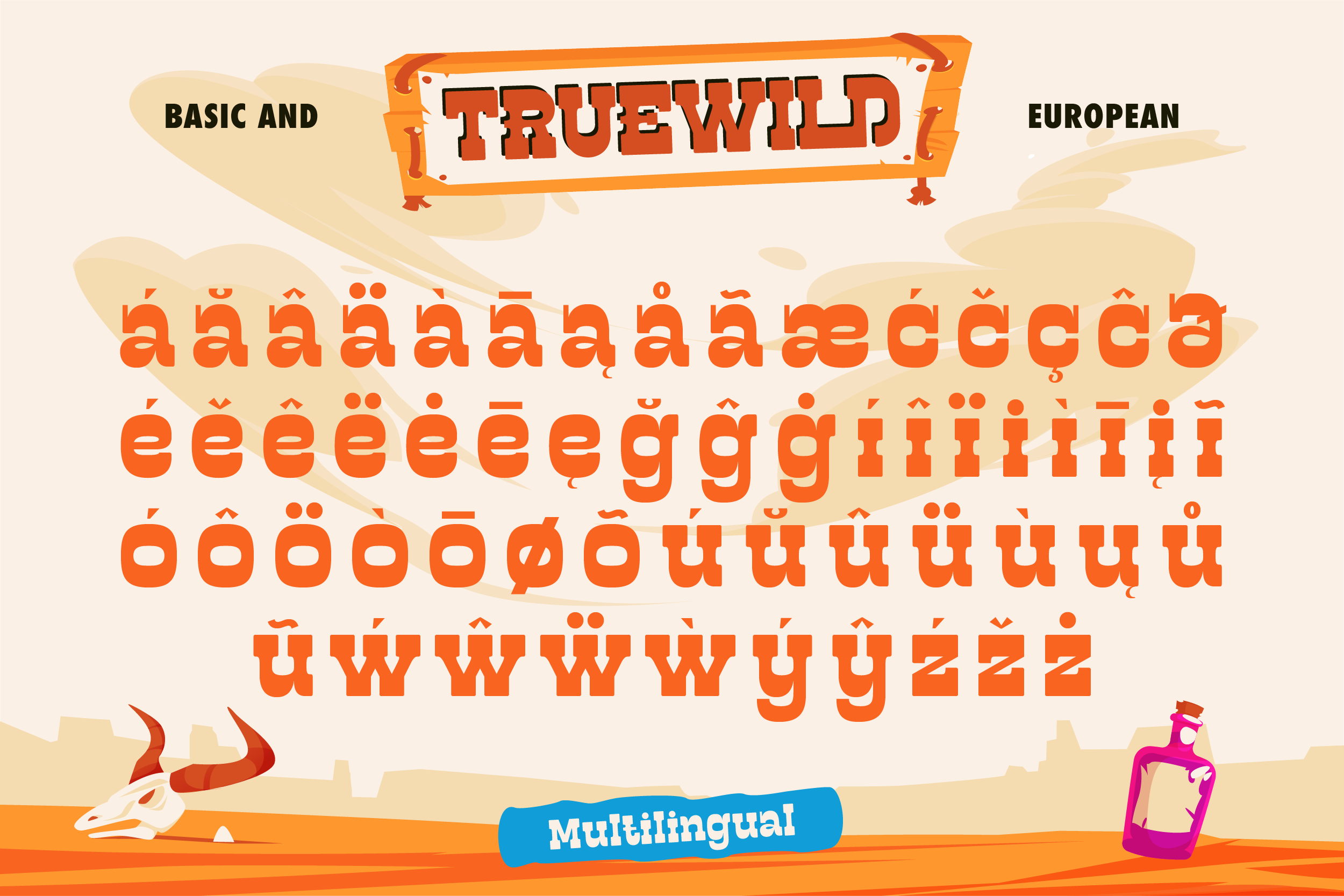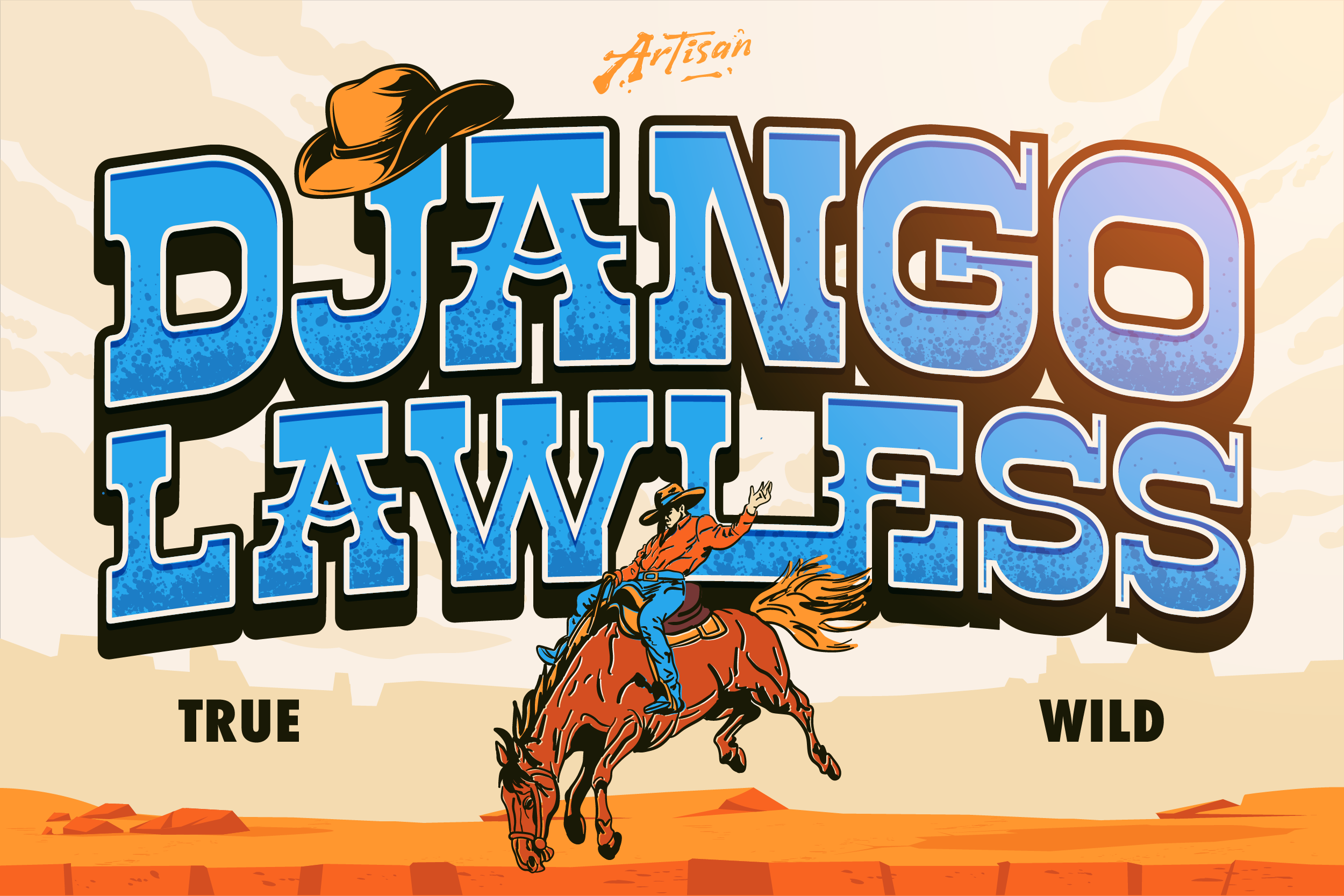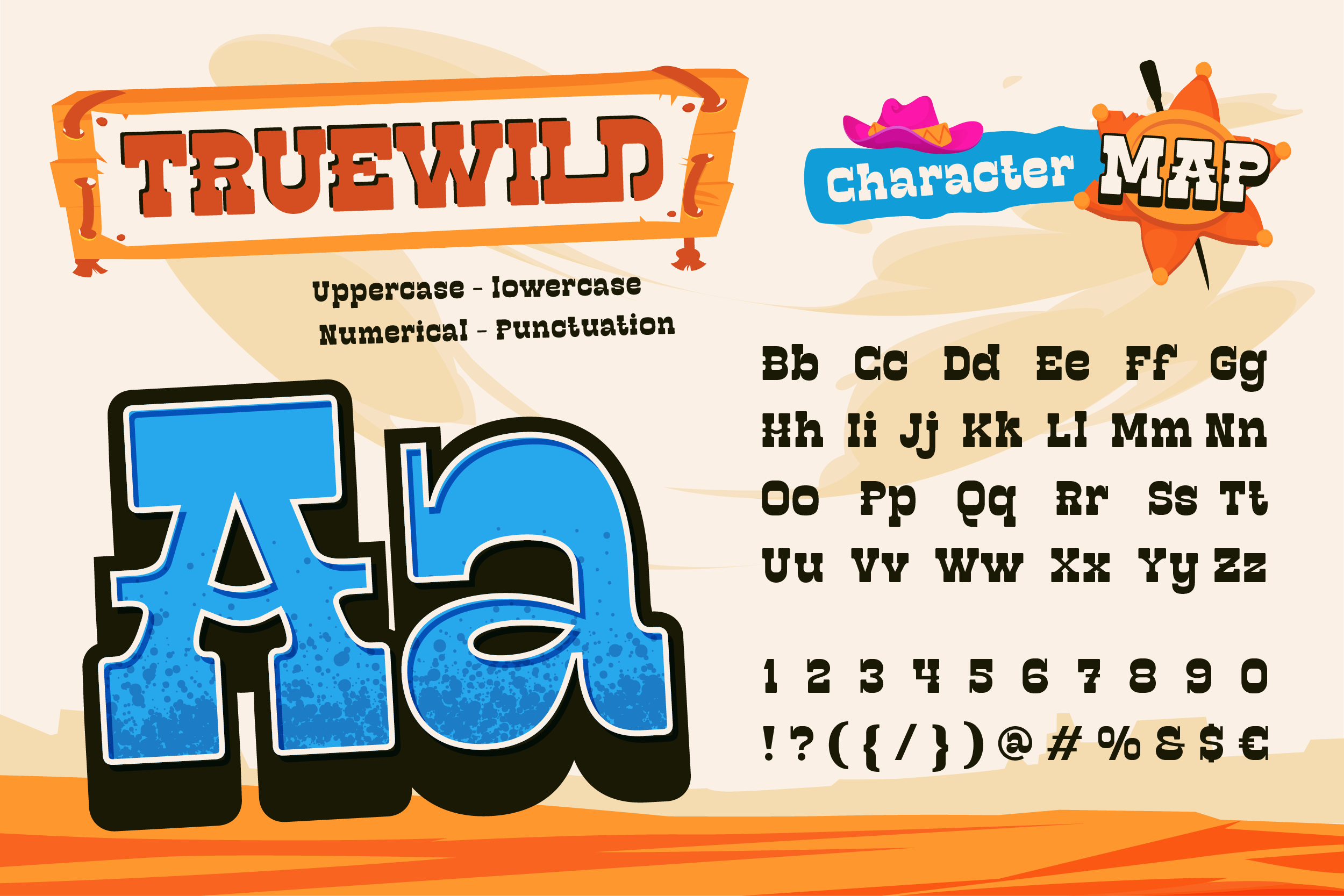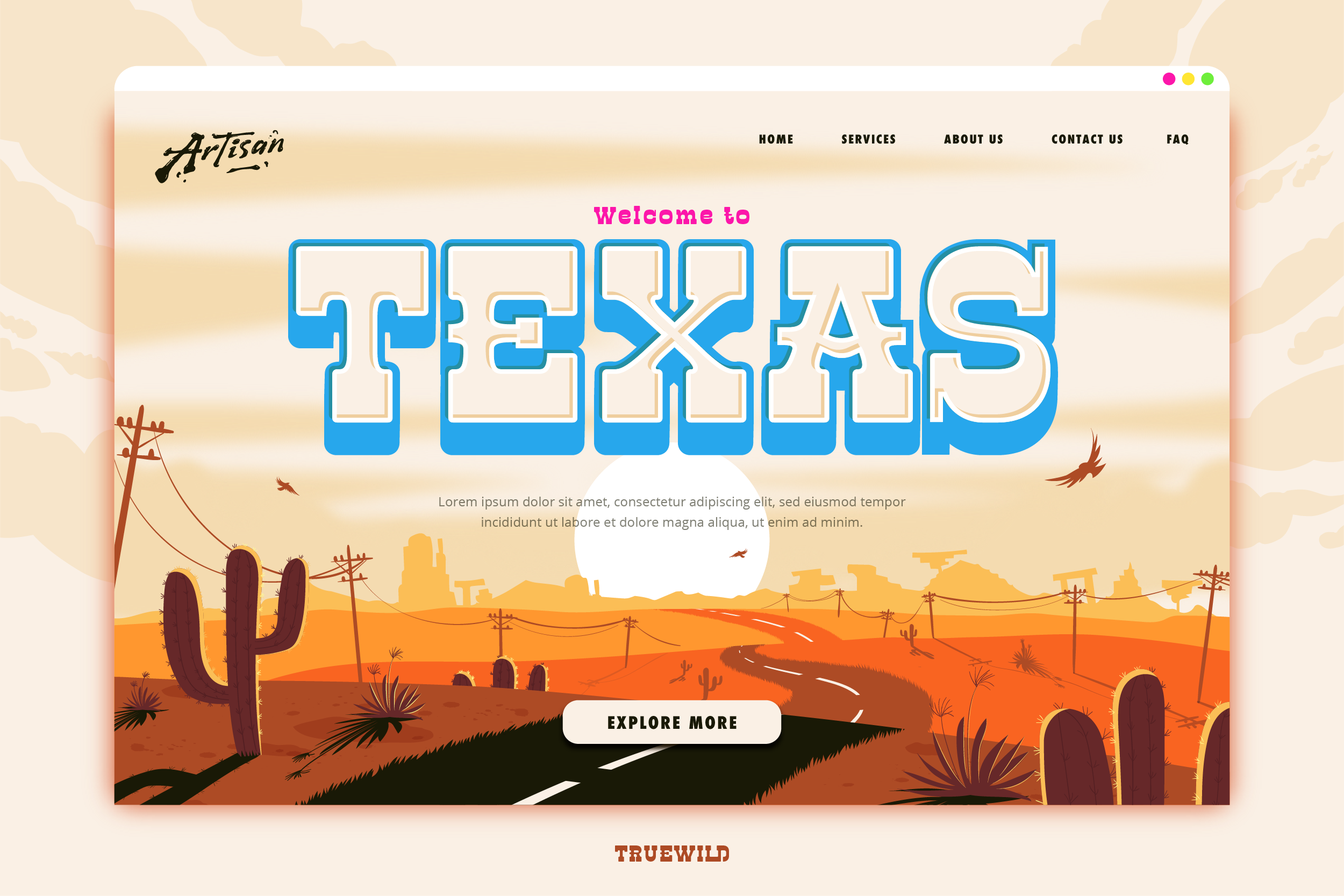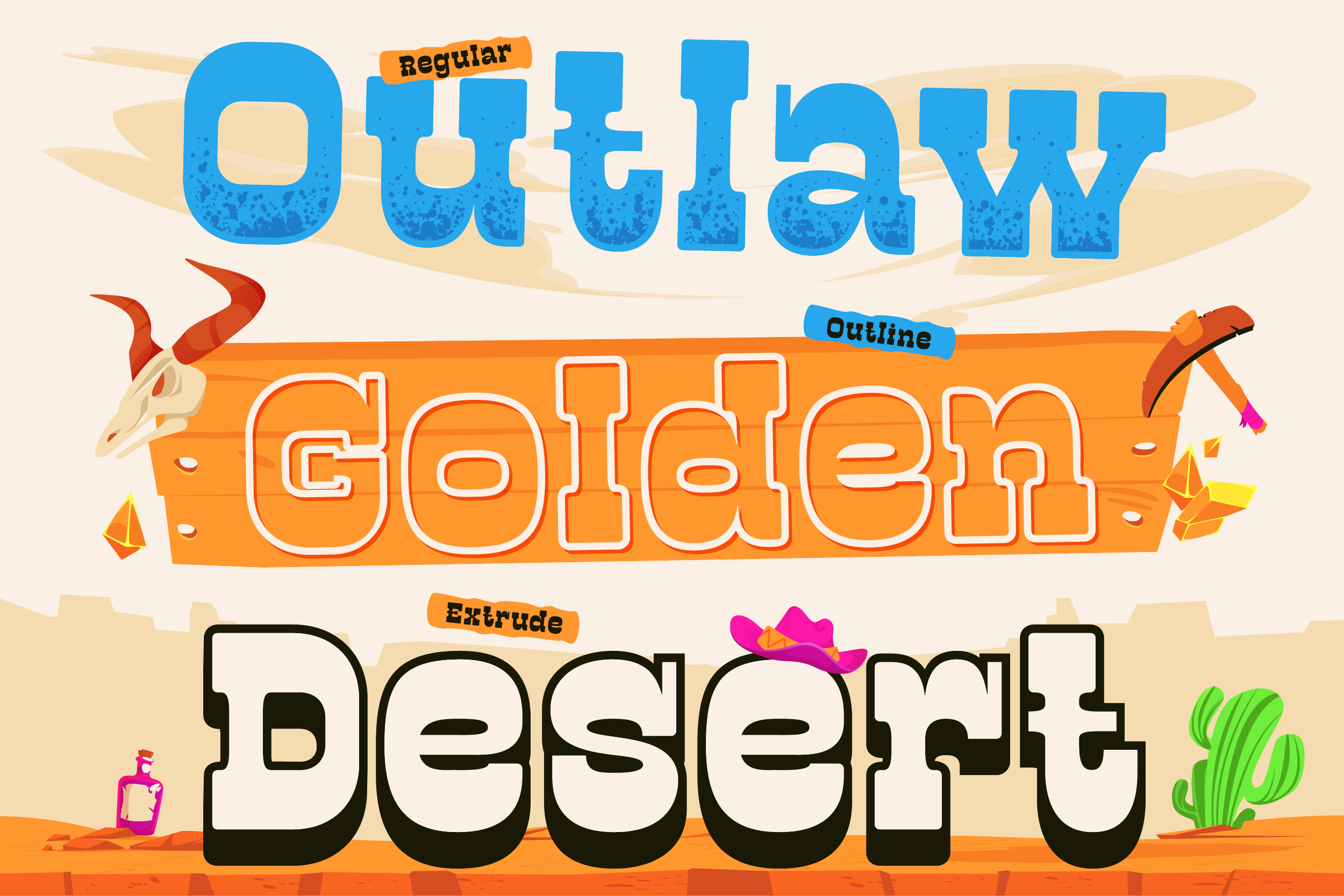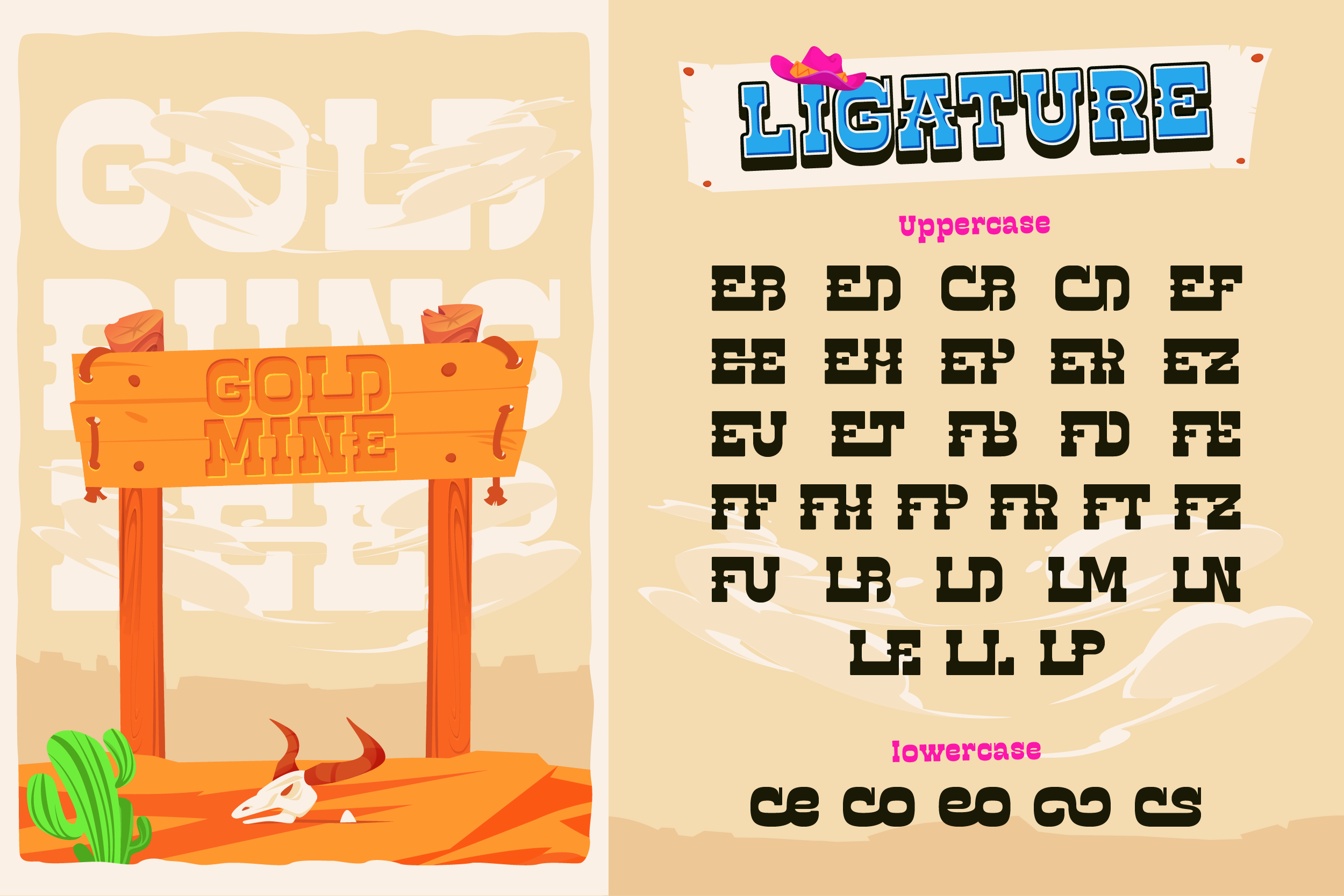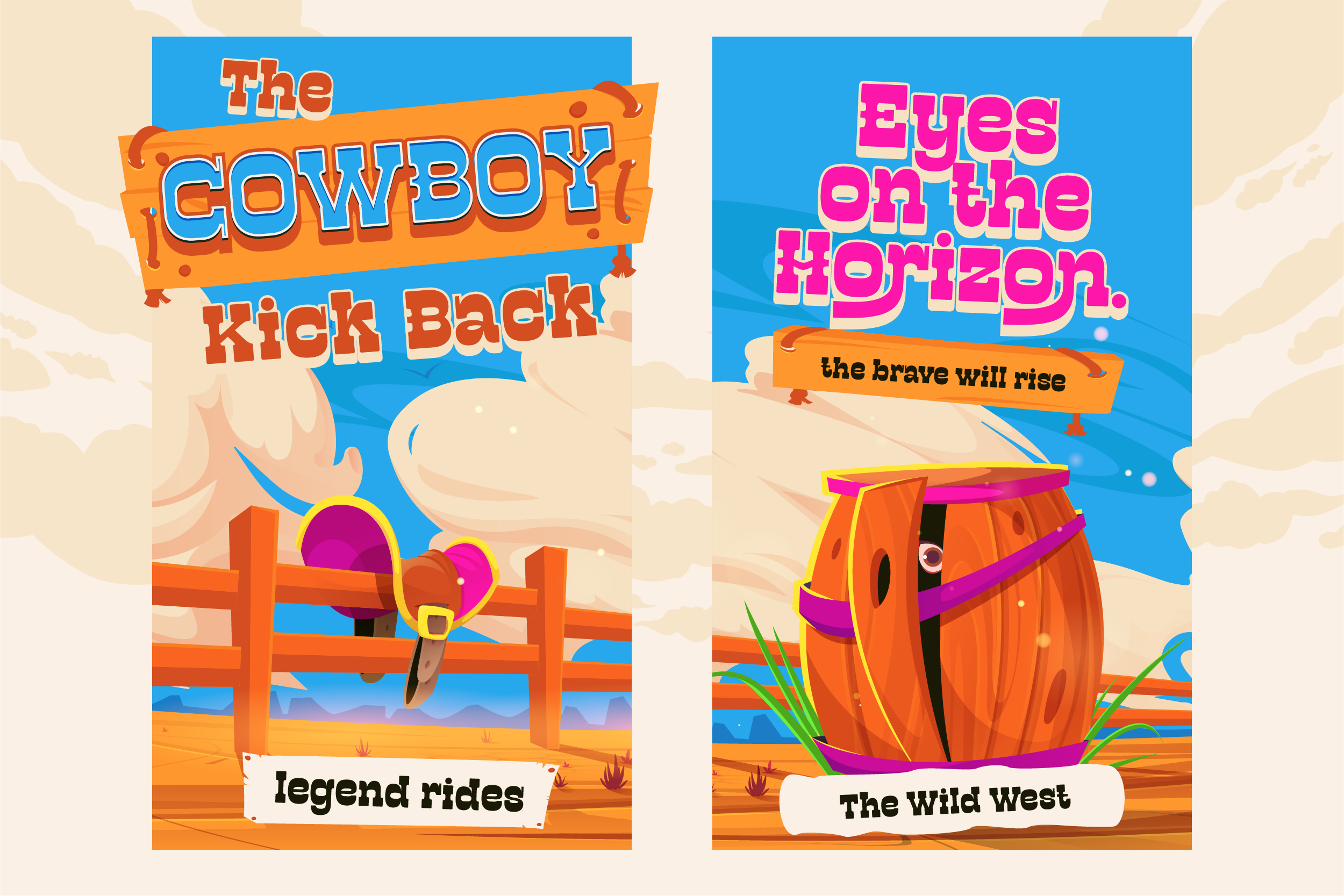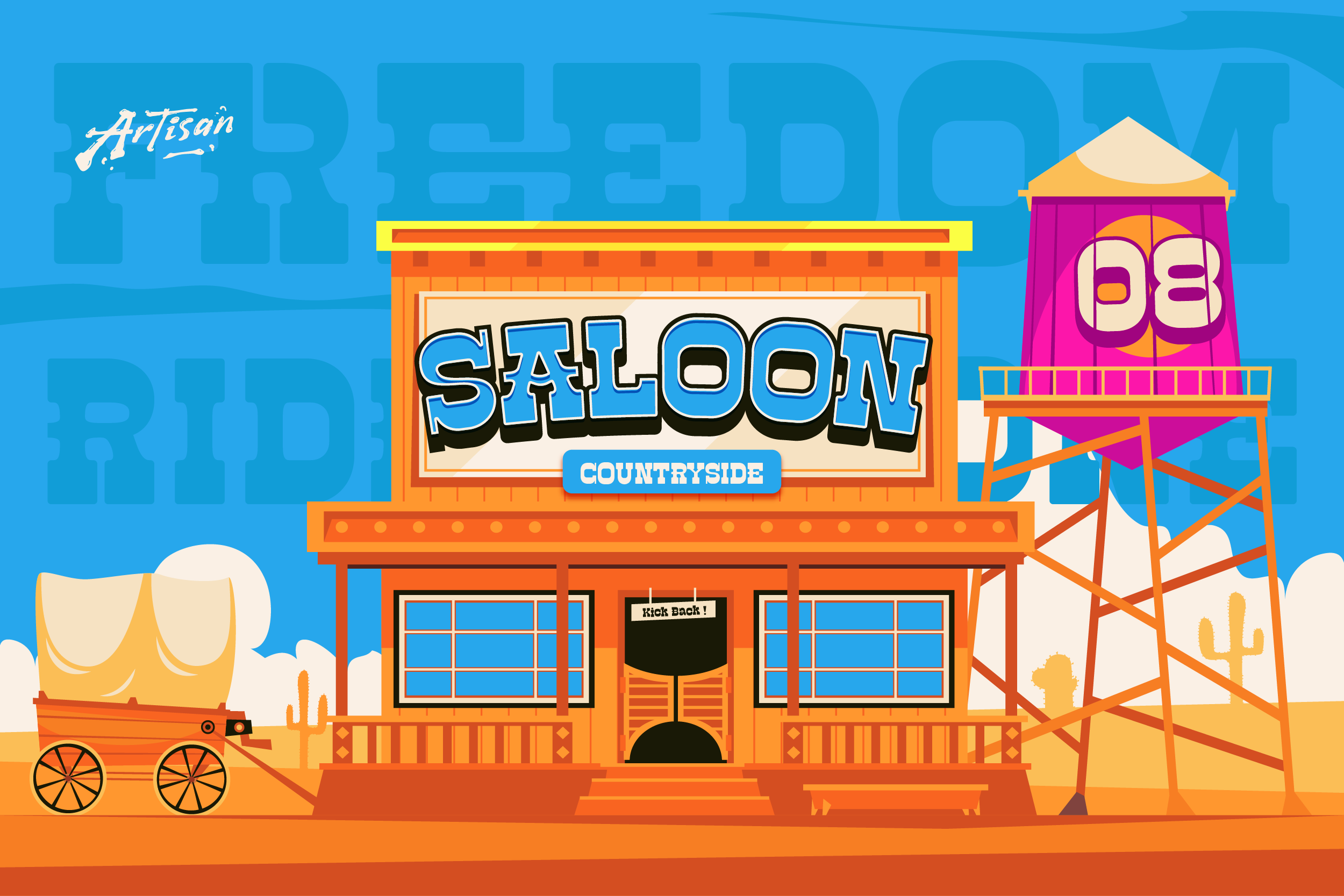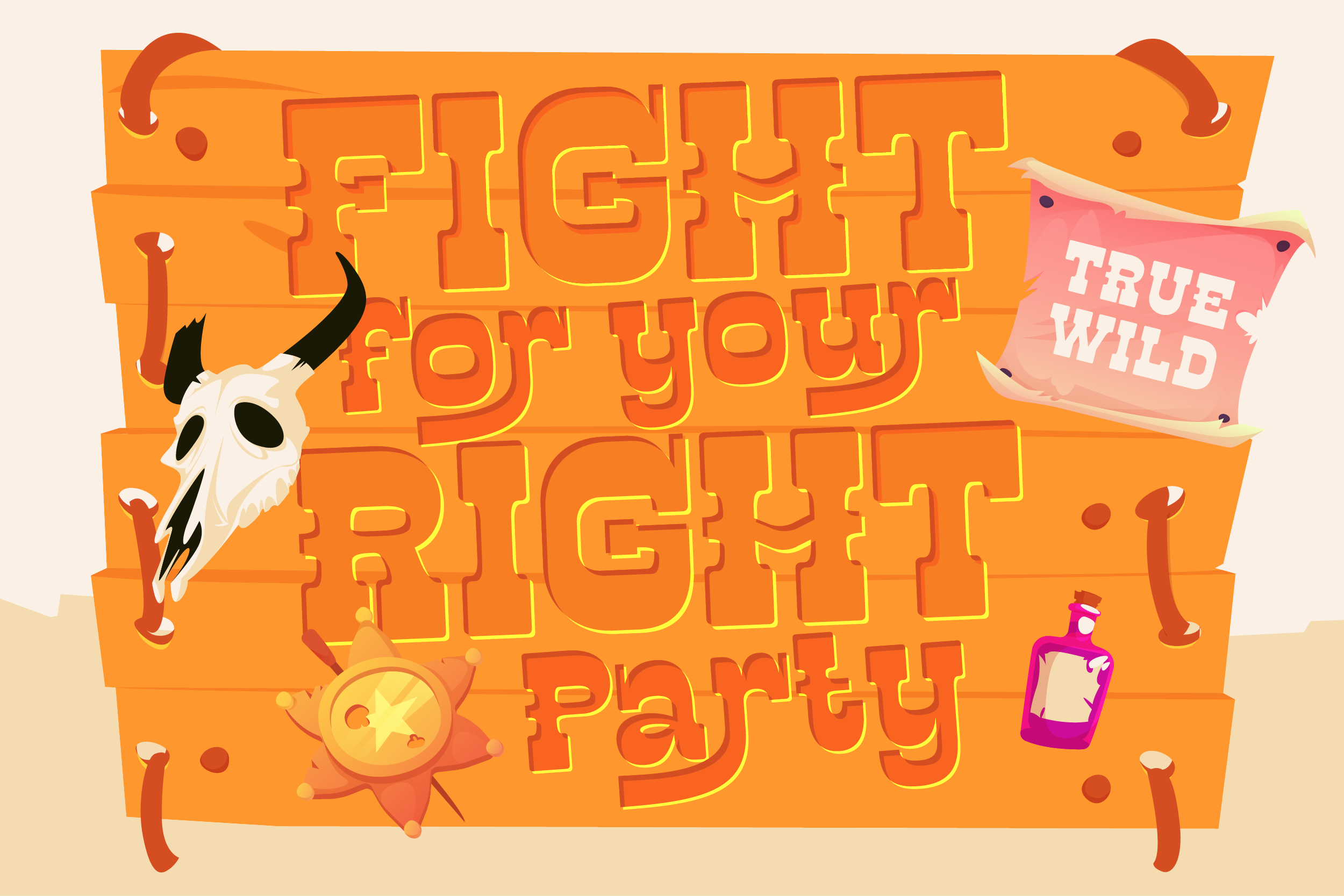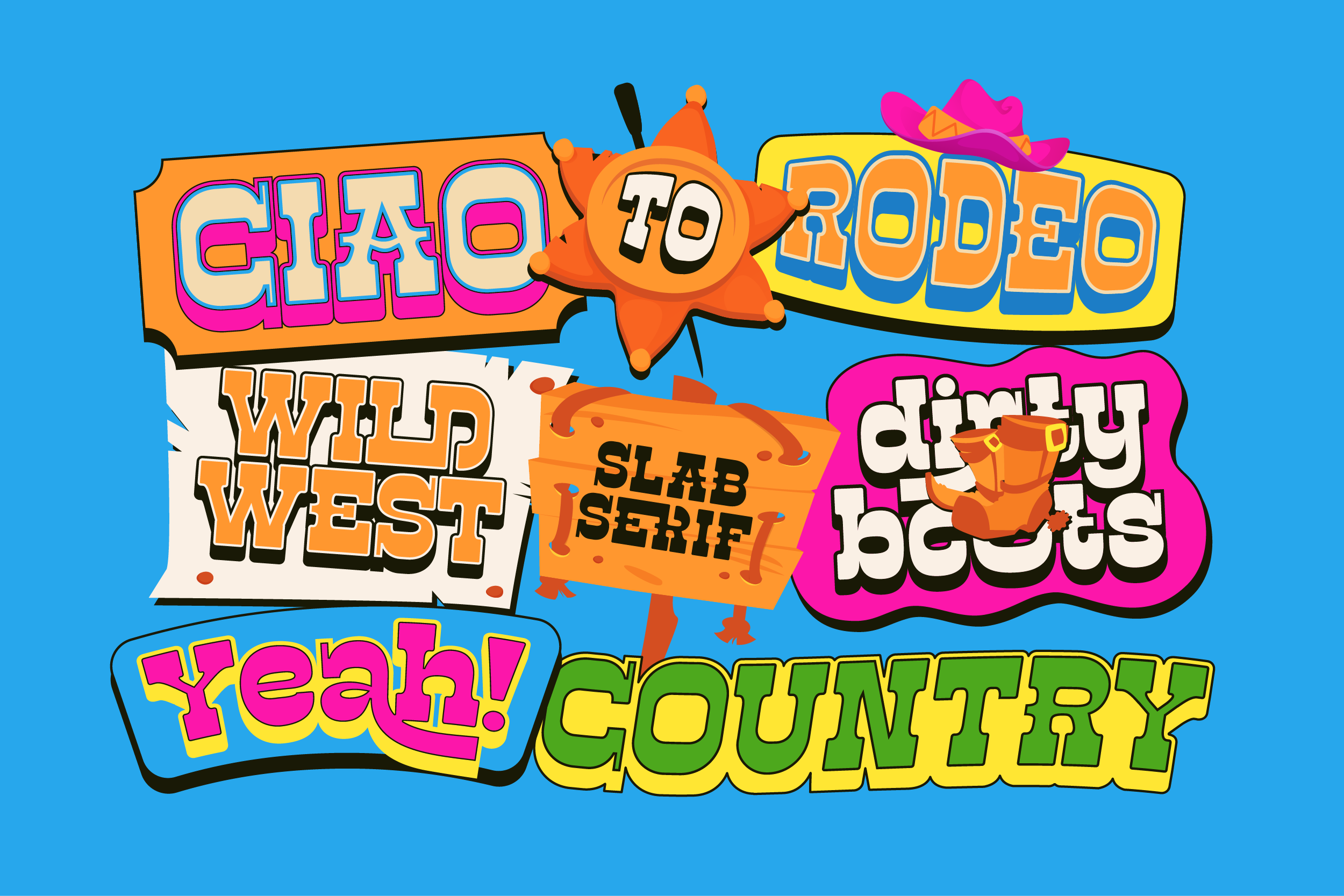
Truewild
REGULAR
OUTLINE
Extrude 3D
Description
Time to go wild, cowboy!
Truewild is a bold Western-style slab serif that captures the spirit of the wild frontier — with a modern twist. Whether you’re designing for a cowboy movie poster, rodeo branding, or vintage product packaging, this font brings that adventurous Wild West vibe to life.
Comes in Regular, Outline, and 3D styles, making it perfect for eye-catching headlines, retro signage, or playful vintage logos. Each letter feels like a mix of dust, denim, and daring — perfect for any project that needs a little grit and charm.
Let Truewild take your design on a ride through the golden desert, where bold typography meets modern Western attitude!
Perfect For
• Western & cowboy themed designs
• Vintage logos and badge designs
• Rodeo posters and event promotions
• Country music branding and merchandise
• Retro product packaging
• Bold headline and display typography
• Adventure and outdoor branding
• Rustic signage and label design
• T-shirt and apparel design
• Social media graphics with western vibes
• A – Z set (Uppercase & Lowercase)
• Number
• Alternates
• Ligatures
• Punctuation
• Multilingual
• Truewild Characters Map